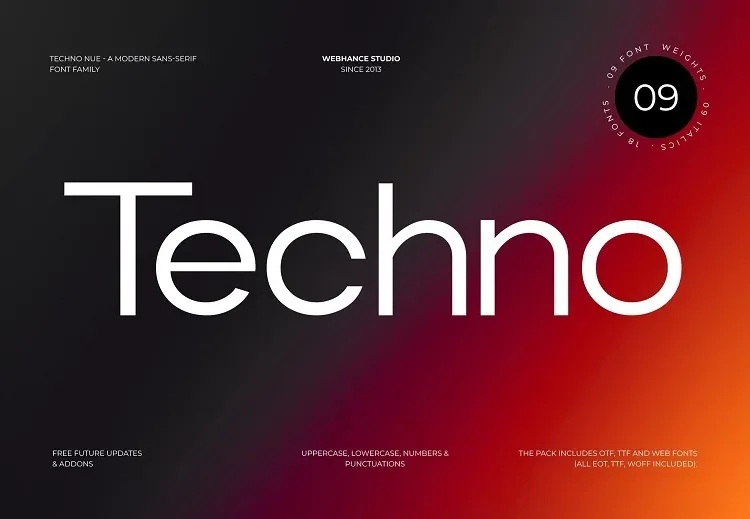
Techno Nue Font Family
Techno Nue is a meticulously designed sans-serif font family that brings a technical and clean aesthetic to any project. With 9 weights ranging from thin to heavy, along with matching italics, this comprehensive family offers a total of 18 fonts, making it a versatile choice for a wide range of design needs.
Key Features of Techno Nue:
Extensive Weight Options: Techno Nue provides 9 different weights plus italics, giving you a broad spectrum of styles to suit various design requirements, from branding and logo creation to web design and social media graphics.
Modern and Technical Design: The font’s clean lines and simple geometric forms ensure a contemporary look that enhances clarity and readability, making it perfect for both print and digital media.
Versatile Applications: Ideal for a multitude of uses including posters, Instagram posts, social media banners, text for reels, video infographics, and YouTube thumbnails, Techno Nue adapts seamlessly to any project that demands a modern and professional appearance.
Ideal Uses for Techno Nue:
Branding and Logo Design: Elevate your brand with the sleek and modern style of Techno Nue, ensuring your logos and branding materials are both distinctive and professional.
Website and Social Media: Enhance your online presence with clean, clear typography for website text, Instagram posts, social media banners, and more, making your content stand out with a polished look.
Print and Digital Media: Whether for posters, video graphics, or other printed materials, Techno Nue delivers a modern, technical feel that is both versatile and easy to read.